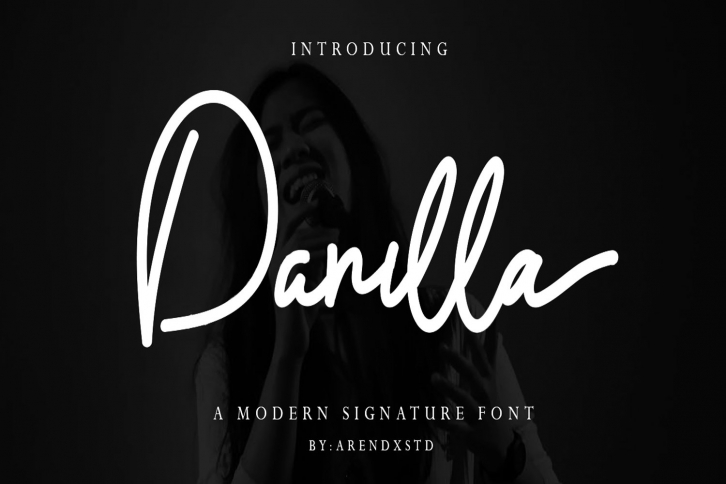
Danilla Signature Modern script font
This font is very suitable for your design project because it is very elegant and modern style with character you can apply it on business cards, posters, branding names, logos, your products and others
It's a handwritten font. This font includes all upper and lower case standard characters, punctuation, numerals and ligatures.